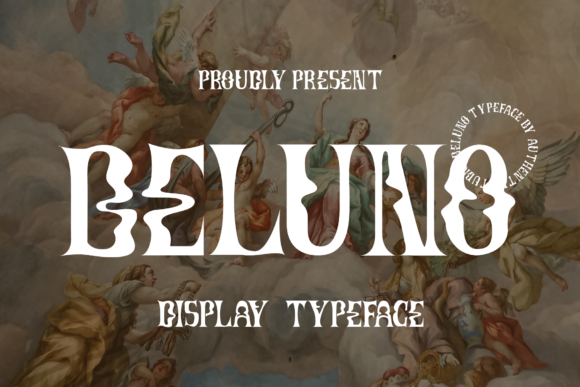
Head over to Beluno Font, the groovy serif typeface that's as retro as it is bold and playful. Get ready to inject a dose of pure fun into your projects with Beluno!
Picture this: a font that embodies the essence of retro charm and modern flair, seamlessly blending the best of both worlds. Beluno's got a vibe that'll make your designs pop, whether you're creating logos, posters, or eye-catching social media graphics.
Beluno's got a personality that's impossible to resist. It's playful, it's bold, it's got a touch of mischief that'll make your designs stand out from the crowd. And that's not all—Beluno's got a versatility that'll make your creative heart sing.
Use Beluno to craft logos that command attention, posters that beg to be seen, and social media graphics that'll make your followers hit that like button like nobody's business. Beluno's got the power to transform your designs into masterpieces, so get ready to unleash your creativity and make something spectacular.
Don't just take our word for it—Beluno's already got a crew of devoted fans who can't get enough of its charm. They're using it to create stunning wedding invitations that ooze elegance, business cards that leave a lasting impression, and website designs that make visitors go, "Wow!"
So why settle for ordinary when you can have extraordinary? Dive into the world of Beluno Font today and unlock a world of creative possibilities. It's the perfect addition to your design arsenal, just waiting to help you create something truly remarkable. Get ready to make your mark with Beluno!